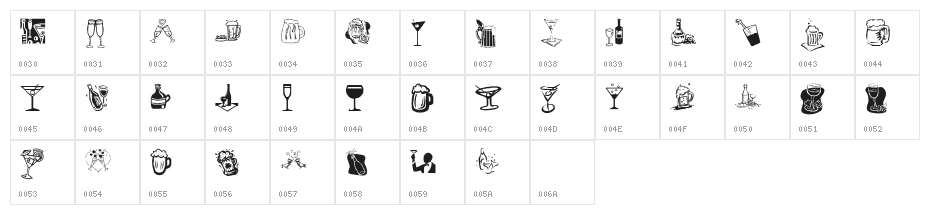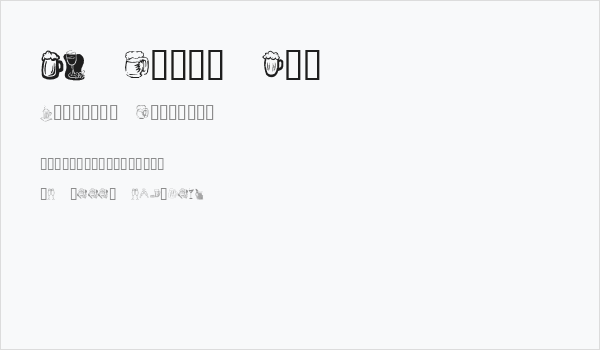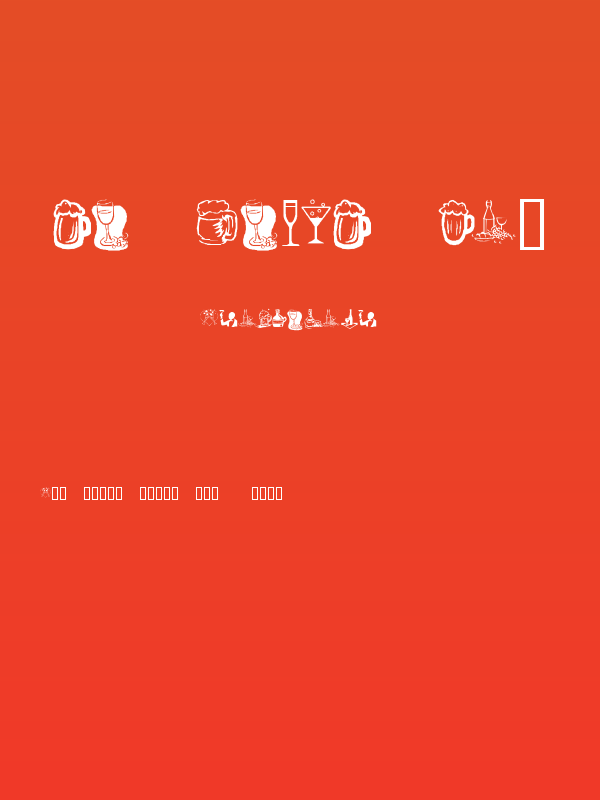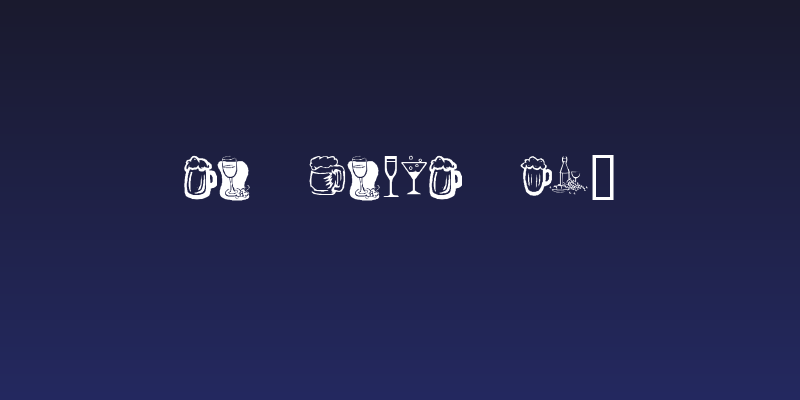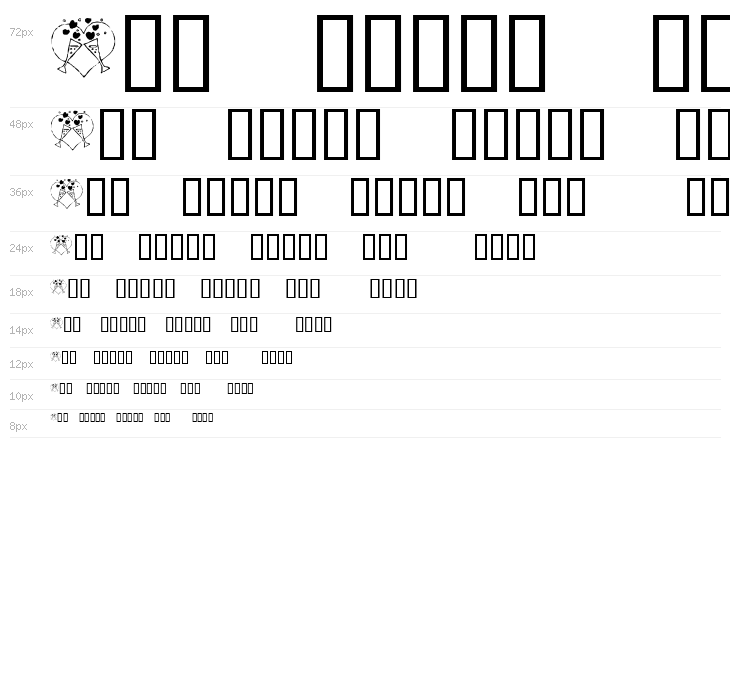
KR Drink Up! Font
KR Drink Up! Description
This decorative font features a playful and thematic collection of drink-related illustrations. Each character is represented by a unique graphic depicting various beverages, including cocktails, beer mugs, wine glasses, and bottles. The style is bold and cartoonish, with thick lines and a lively, festive feel. The illustrations are detailed, capturing the essence of each drink with creative flair. This font is perfect for projects that require a fun and thematic touch, particularly those related to parties, bars, or beverage branding.
Proposed ProjectsIdeal for party invitations, bar menus, beverage branding, and festive event promotions.